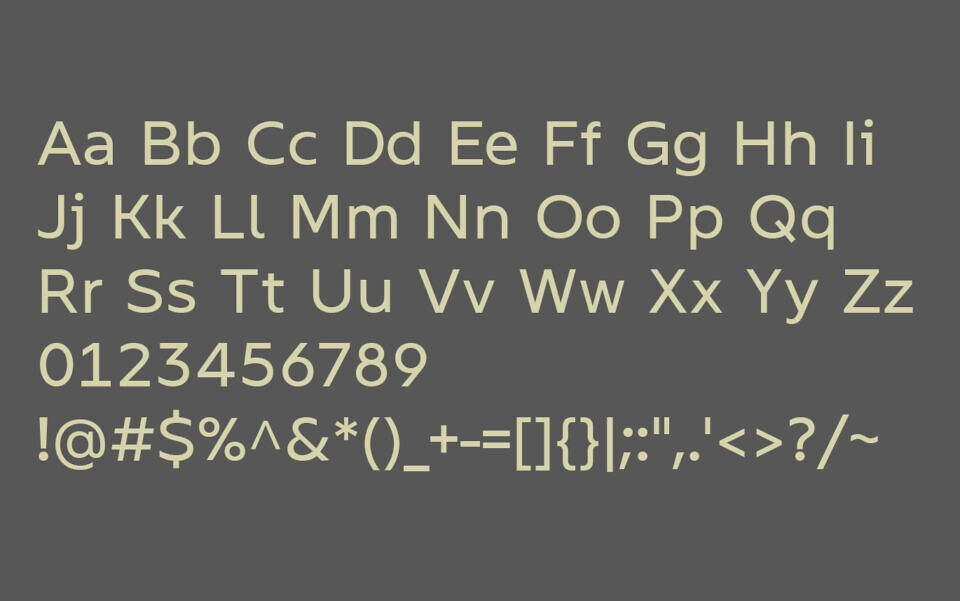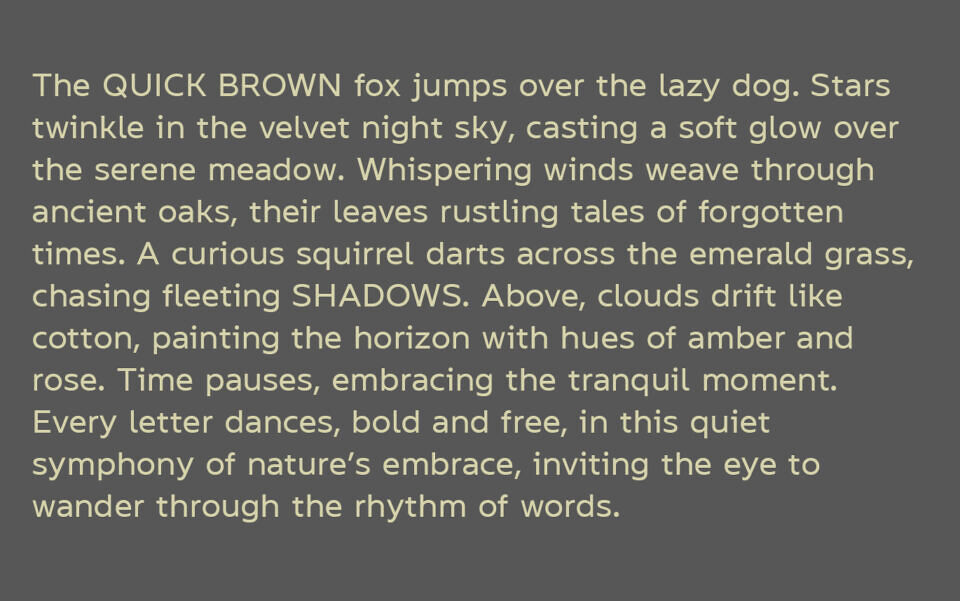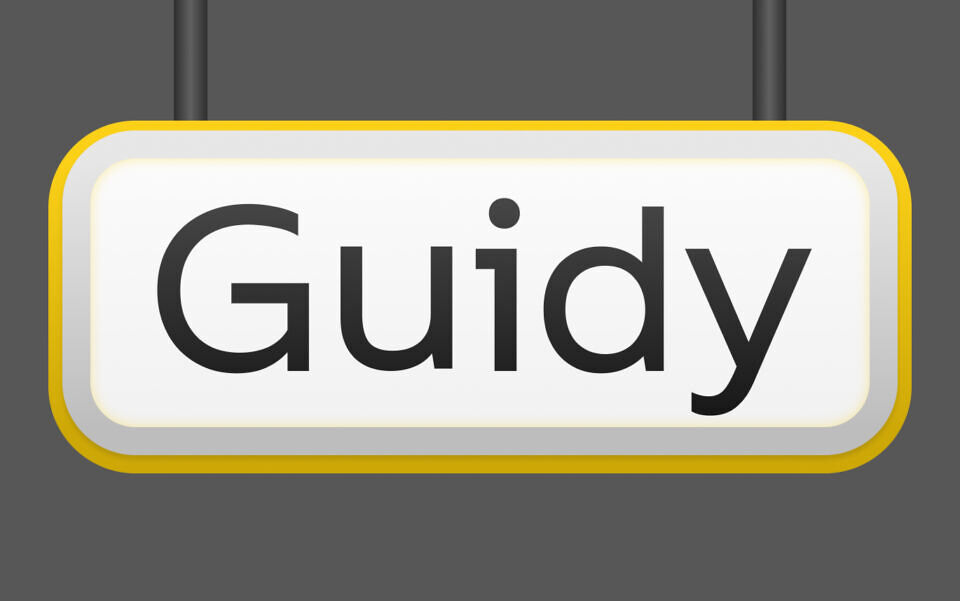
Guidy Font
Guidy is a wayfinding typeface tailored to specific needs of most modern Cyrillic languages.
Typeface features:
• 451 Glyphs
• 48 Wayfidnig pictograms
• Support for 180+ languages
• 9 OT features
• Pictograms search function embedded inside fontfile
Guidy is a geometric grotesque with humanistic roots. It draws inspiration from such typefaces as: Avenir, Frutiger, Geometria, Gill Sans, Wayfinding Sans.